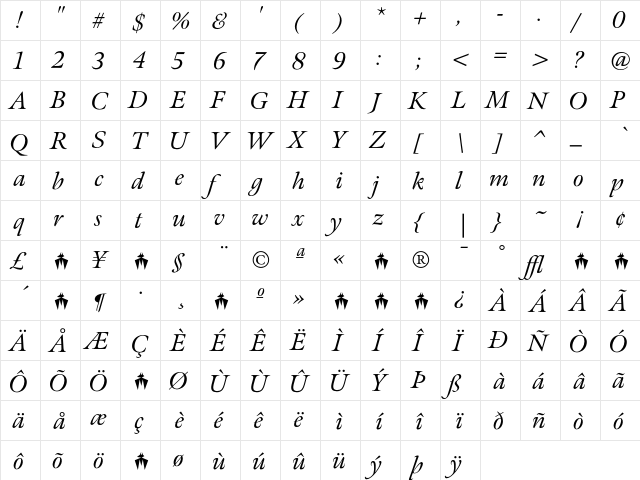
Meno Italic
Design Context for Meno Typeface
Meno takes a measured approach to typography — its balanced proportions and neutral character make it a reliable workhorse for both digital and print work. The dynamic lean of this cut emphasises speed and emphasis in any layout.
Pro Tip: Use Meno for emphasis, pull quotes, and subheadings where its slanted energy can add rhythm to the layout.